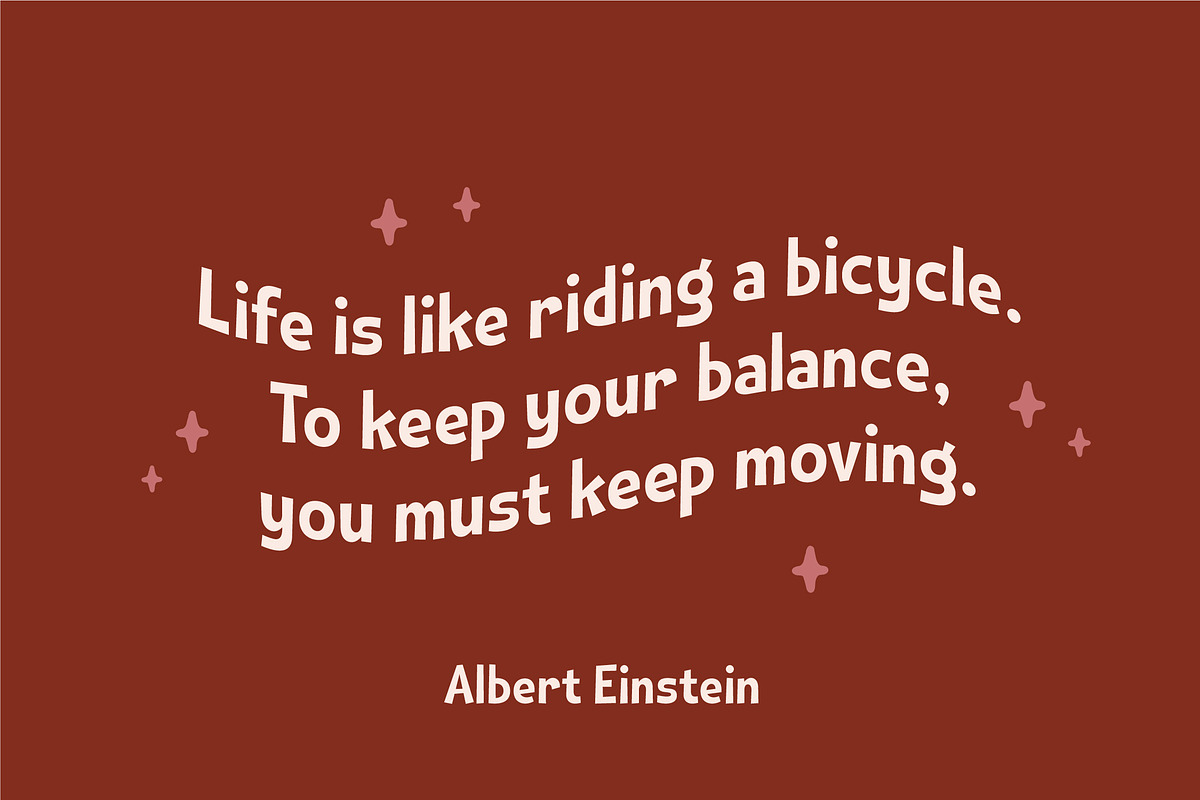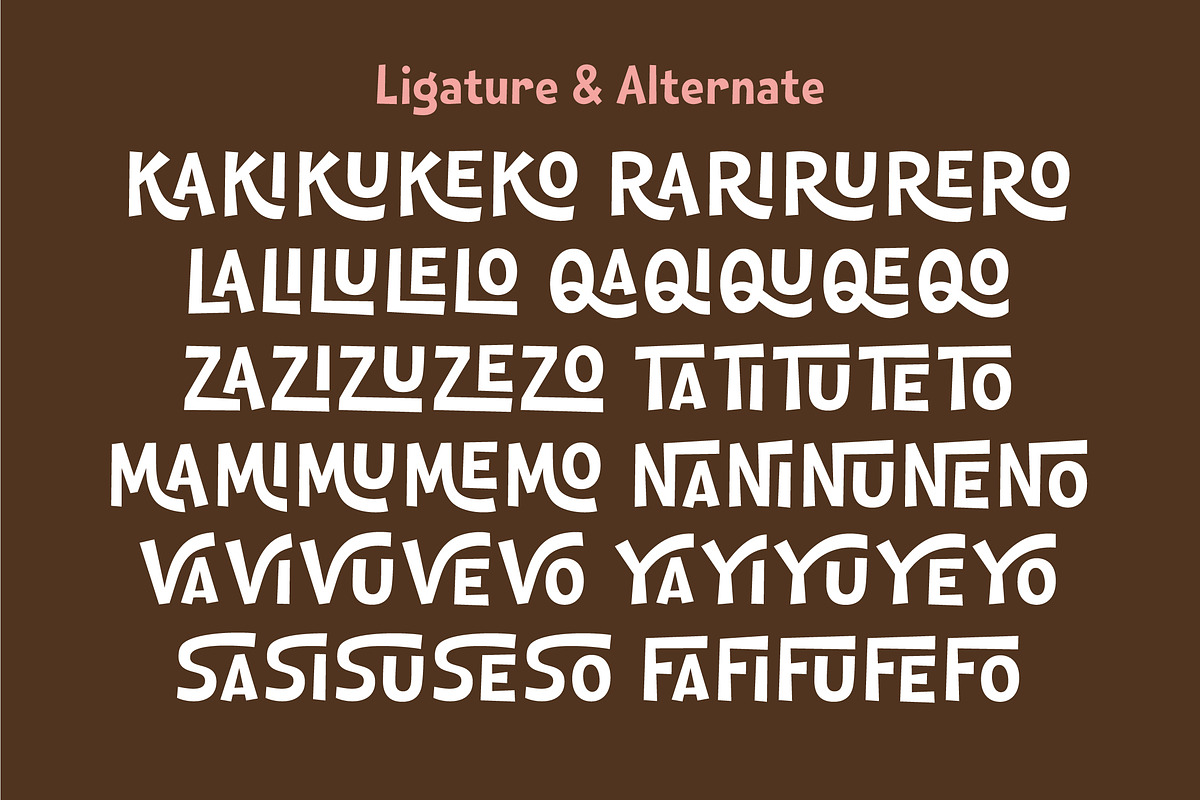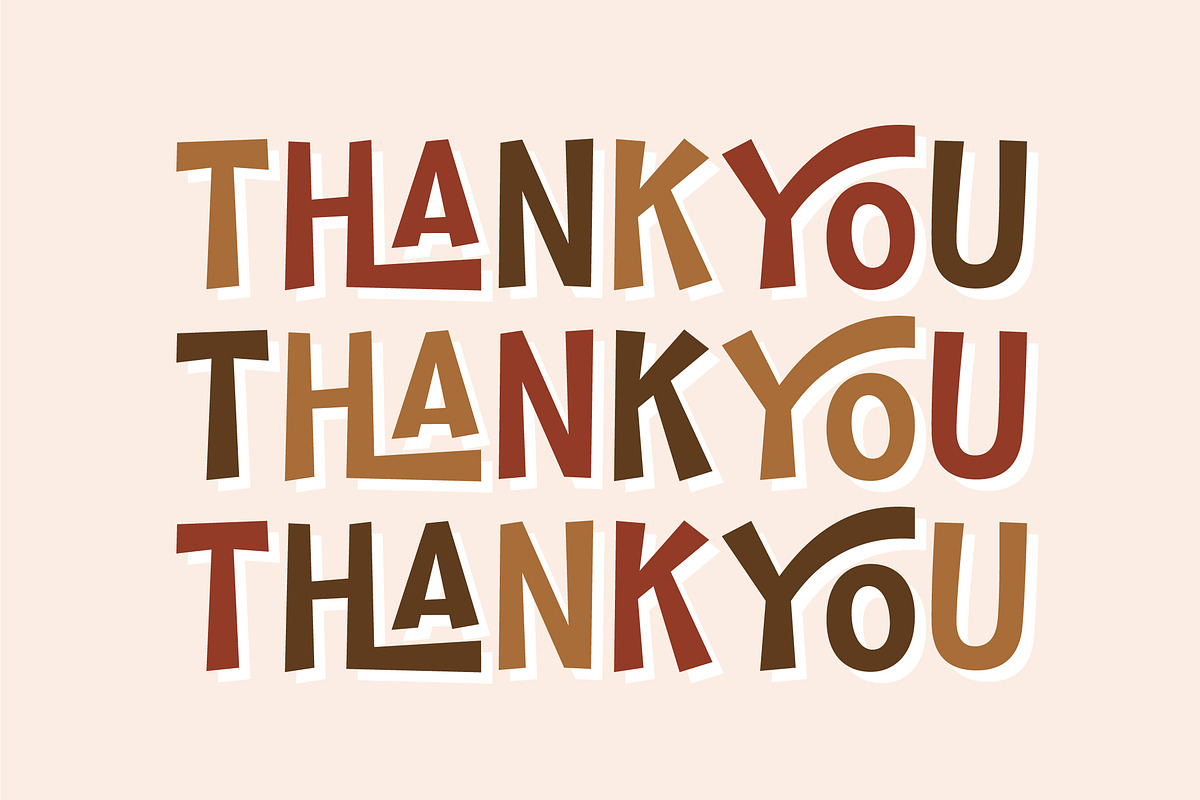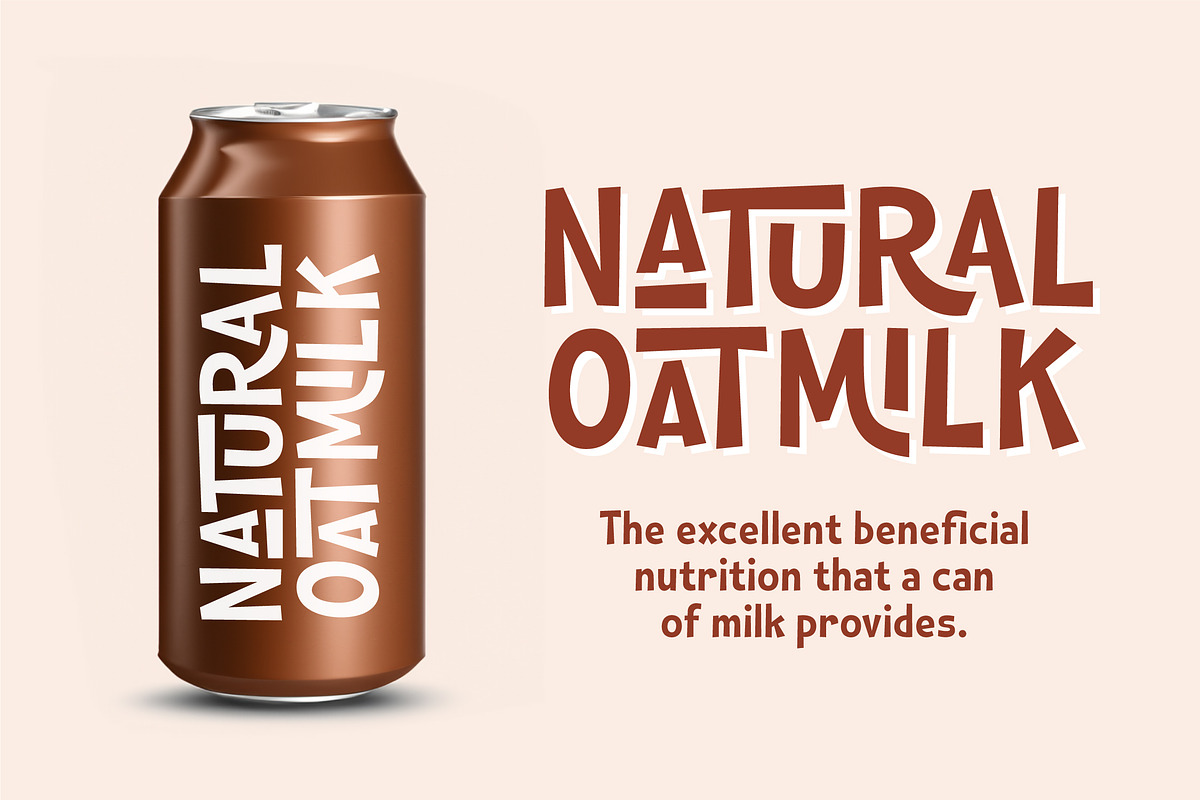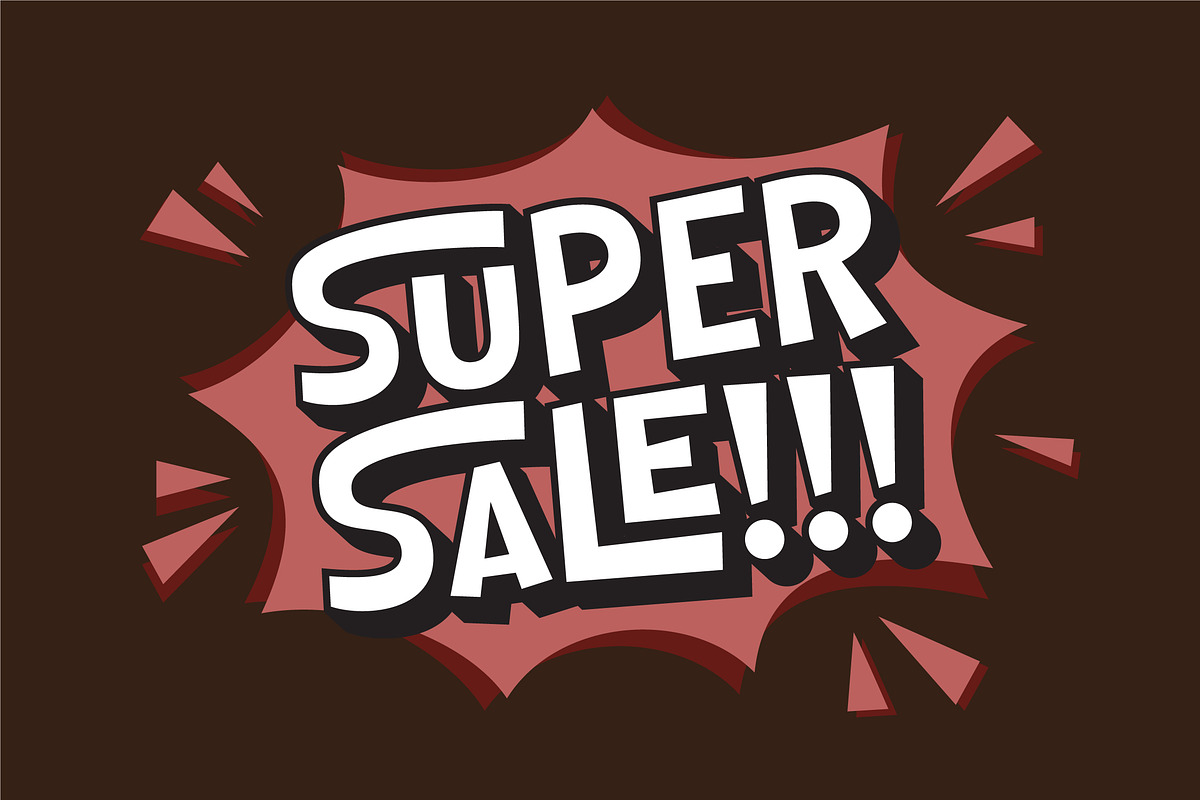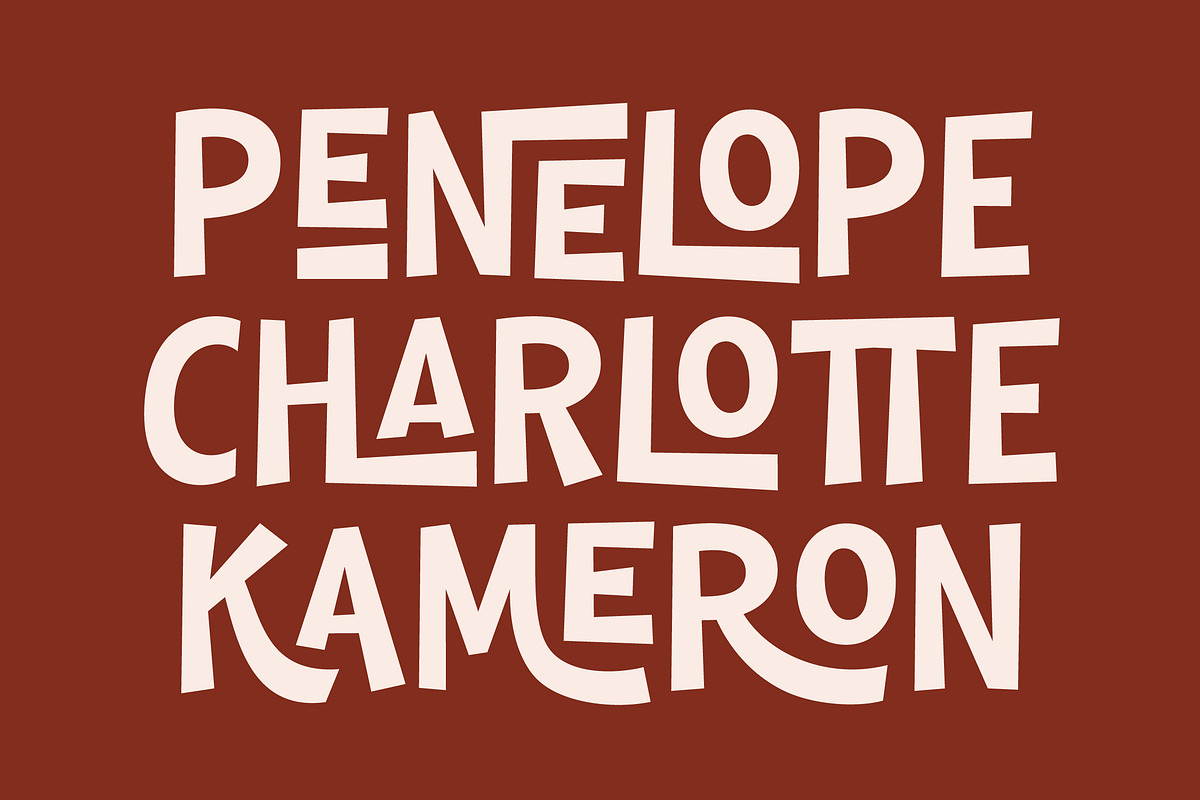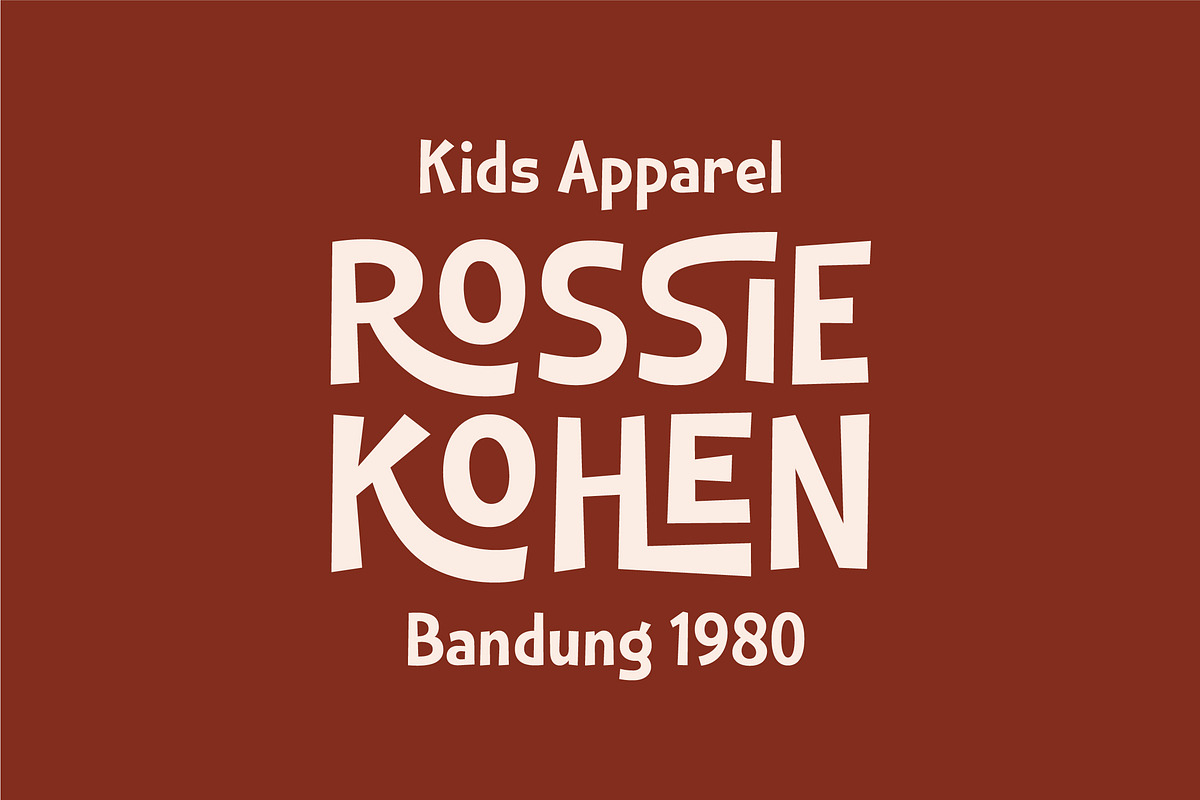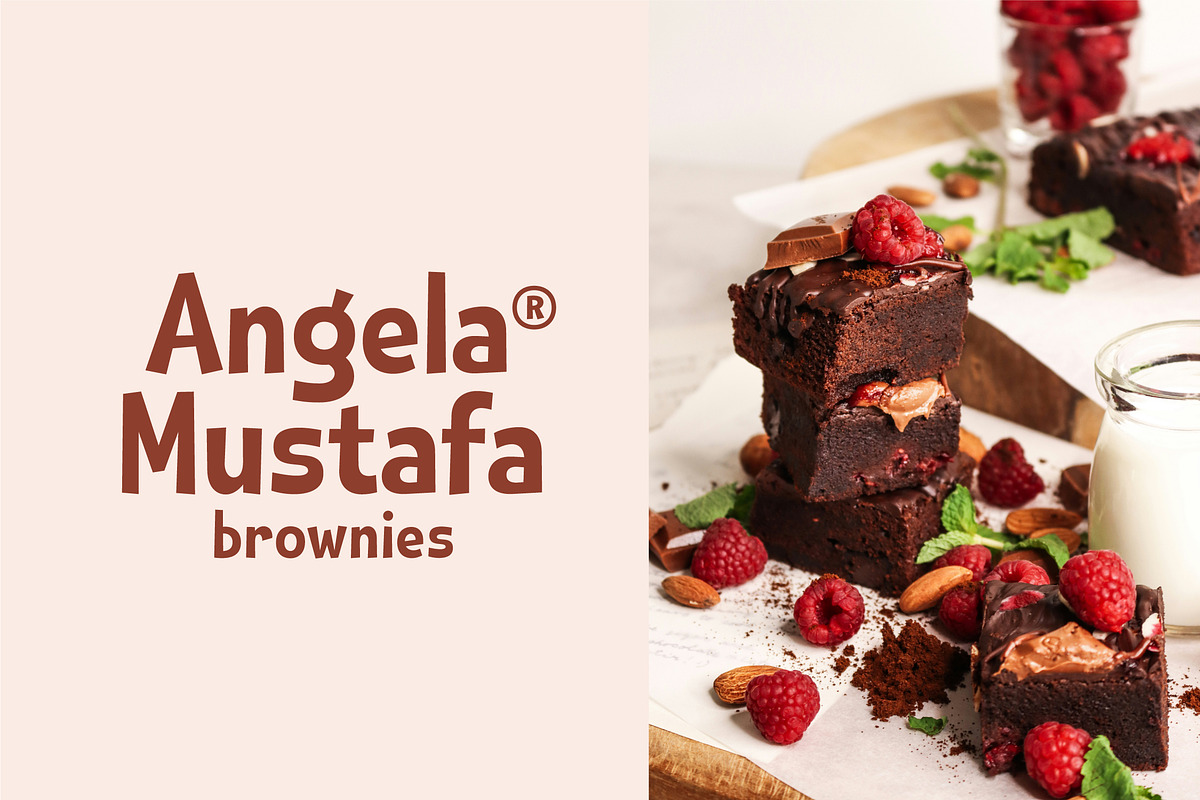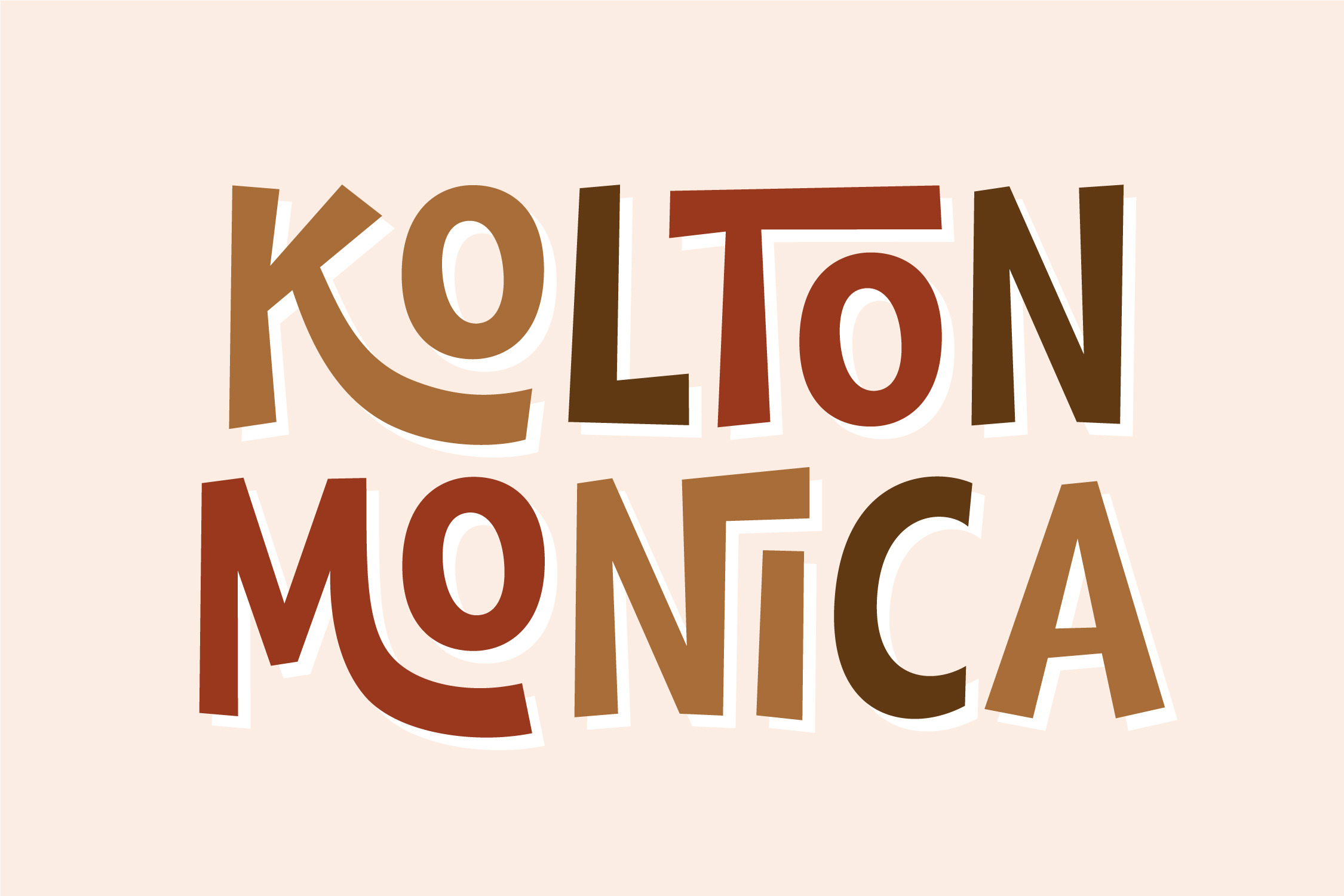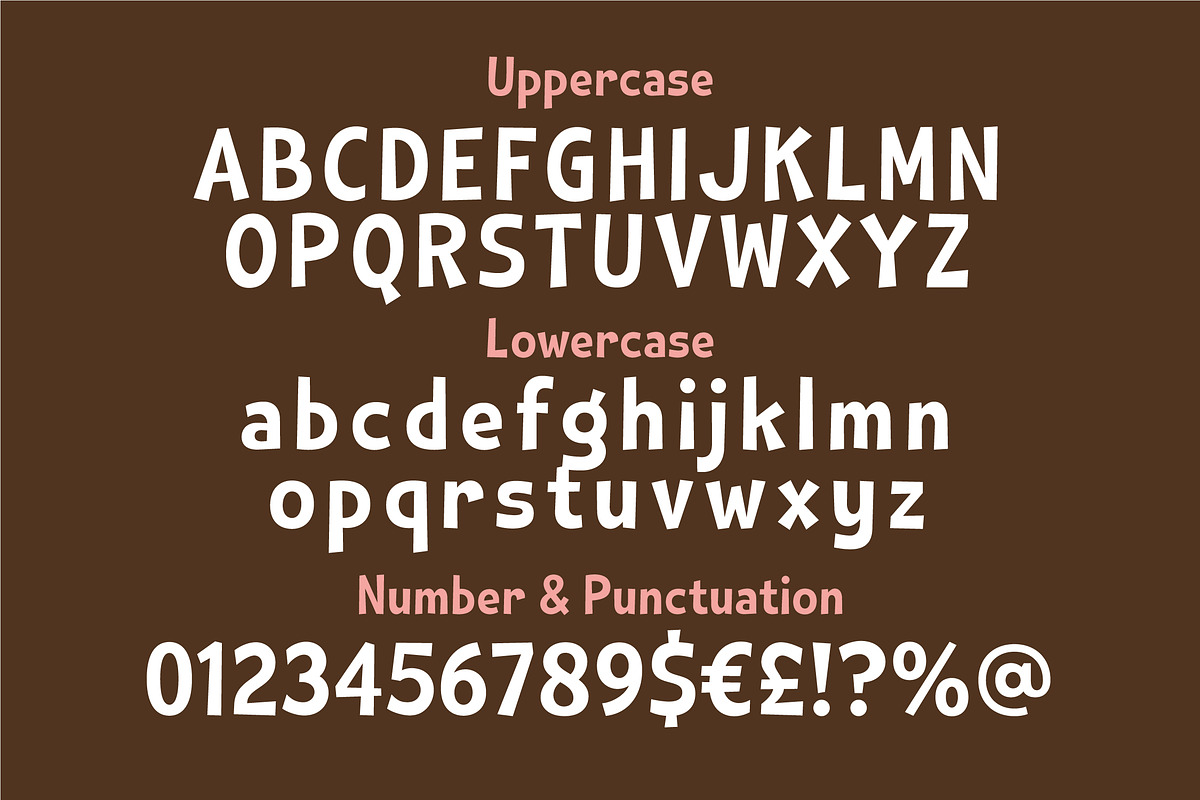
Kolton Monica - Playful Font
Kolton Monica is a fun and playful font with lot of alternate glyphs. This font is the perfect match for kids and children-theme design. Kolton Monica font is ideal for logos, posters, packaging, banner, and other creative projects that demand cheerful vibe and fun elements.
- Ligature & Alternate glyphs
- Multilingual Language